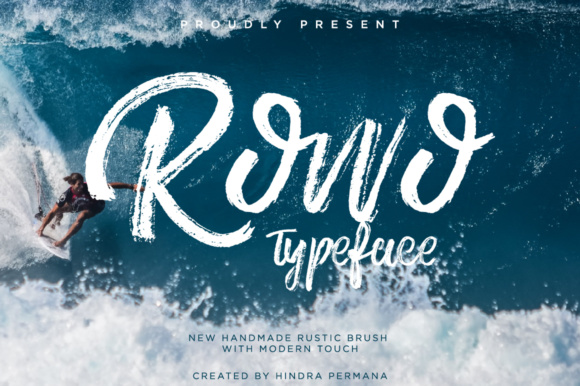
Welcome to the realm of Rowo Font, a script font adorned with meticulous grunge texture, inviting you to embark on a journey of creativity and self-expression. Crafted by the visionary Ndroadv, Rowo captivates with its enchanting strokes, adding a touch of elegance and intrigue to your digital designs.
Rowo is an embodiment of versatility and grace, seamlessly adapting to a myriad of artistic endeavors. Unleash its potential in your merchandising pursuits, turning ordinary products into captivating masterpieces. Transform apparel into canvases of individuality, allowing your designs to stand out from the crowd. With Rowo at your fingertips, your vision knows no bounds, and your imagination takes center stage.
Experience the transformative power of Rowo in your alternative designs, where it thrives as a catalyst for uniqueness and innovation. The intricate details and raw energy of this font add depth and dimension to your creations, making them stand out as true works of art. Let Rowo be your guide, leading you down a path of aesthetic excellence.